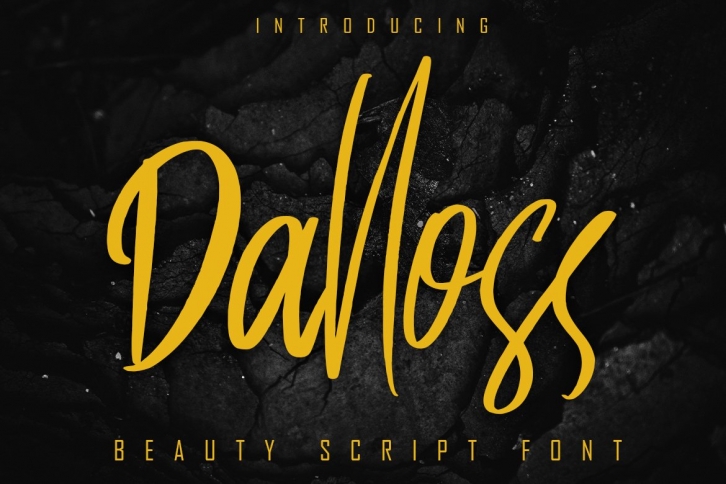
Dalloss Beauty Script Font Download
Dalloss Beauty Script is a great font that was designed by SkiillerStudio. Imagine the amount of combinations you can create using this font! The archive is 4.81 MB and it was released on February 3, 2021. Dalloss Beauty Script looks beautiful on wedding invitations, greeting cards, logos, posters, labels, t-shirt designs, logos, business cards and is perfect for use in ink or watercolor works, fashion, magazines, packaging and food menus, children's books and more!